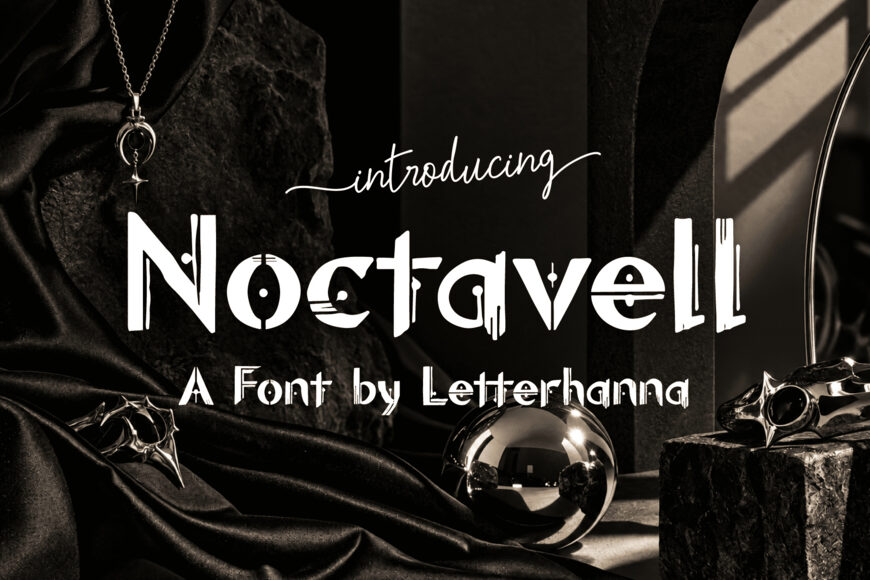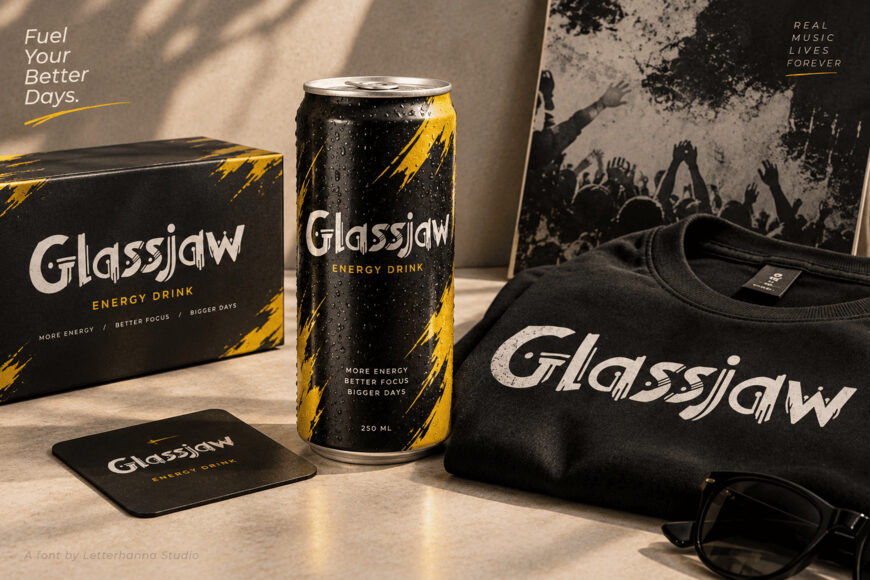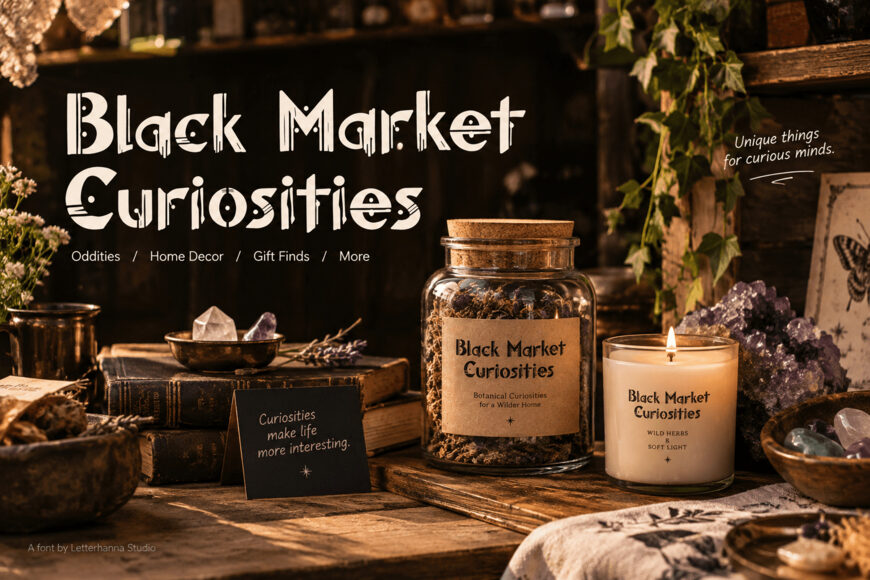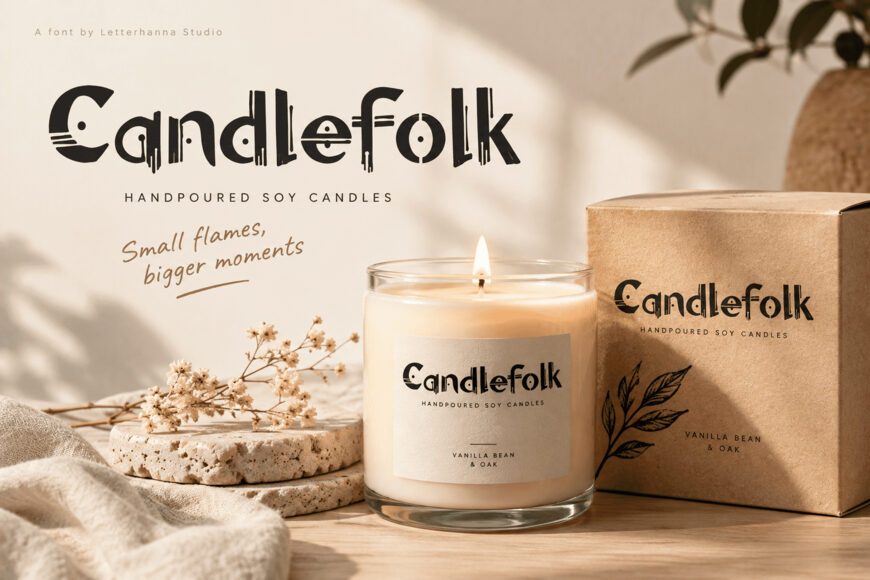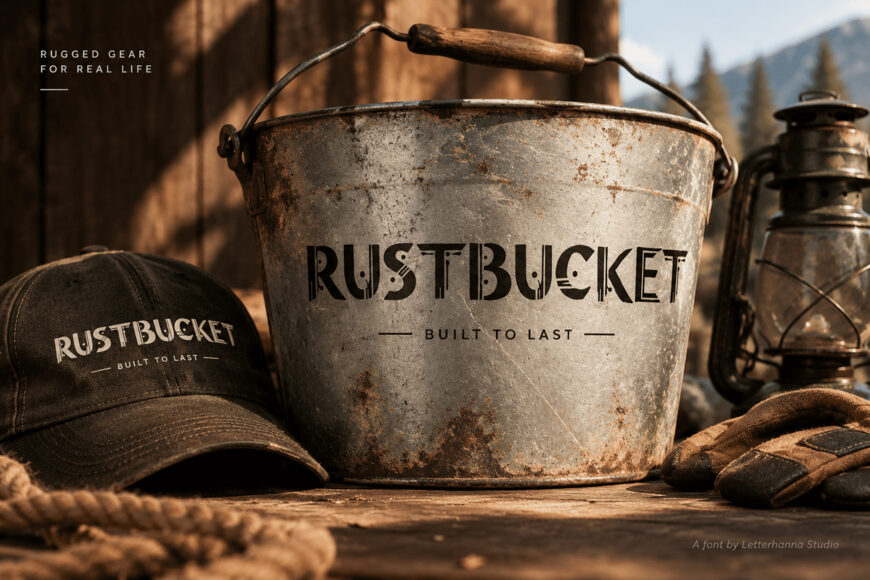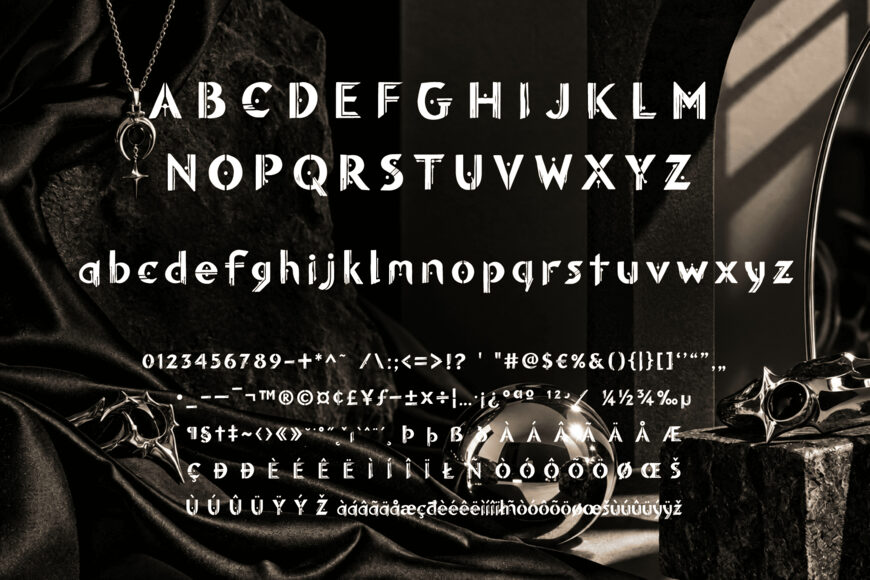
Noctavell Font
Noctavell is a decorative font built from carved strokes, dripping ink details, and dotted accents that give every letter a handmade, almost ritualistic feel. It sits somewhere between a horror-movie title card and a high-end apothecary label — dark, but never cheap-looking, and never hard to read.
Designed by: Letterhanna Studio